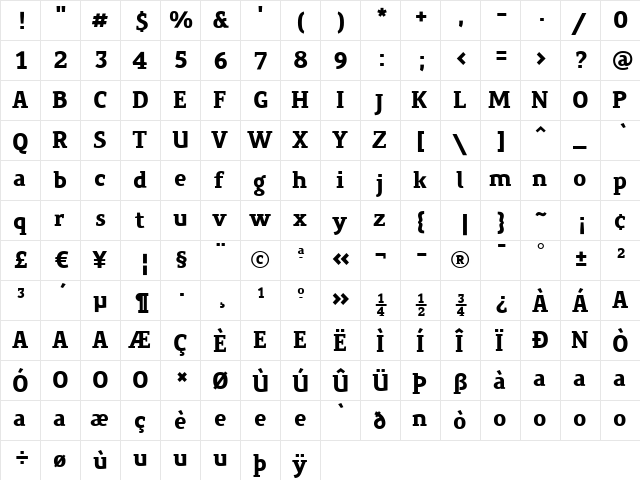
PreciousSerif Bold Font Preview
PreciousSerif Bold
PreciousSerif Bold Font Details
Design Context for PreciousSerif Typeface
PreciousSerif brings classic typographic sensibility to the table — its serifs and measured letterforms reflect centuries of print heritage. Its bold stroke weight gives it real presence on the page.
Pro Tip: Set PreciousSerif with slightly loose tracking in headlines to let each letterform's detail read clearly at display sizes.